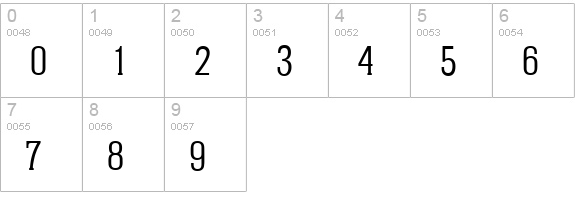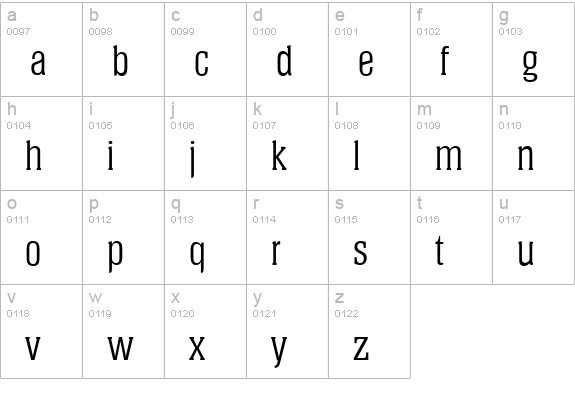
HeliumSerial-Regular is the standard, neutral variant in the HeliumSerial typeface family \xE2\x80\x94 well suited to general body text, paragraphs, and standard typographic work.
HeliumSerial-Regular font is a versatile and modern typeface that offers a perfect balance of elegance and readability. With its clean lines and sleek design, this font is ideal for a wide range of projects, from branding to editorial design. The HeliumSerial-Regular font exudes a sense of sophistication and professionalism, making it a great choice for both digital and print applications. What sets HeliumSerial-Regular font apart is its unique combination of classic and contemporary elements, resulting in a timeless and stylish aesthetic. Whether you're creating a logo, website, or marketing materials, this font will elevate your design and leave a lasting impression on your audience. The best part? HeliumSerial-Regular font is available for free download at FontsMarket.com. So go ahead and add this versatile and eye-catching font to your collection today!